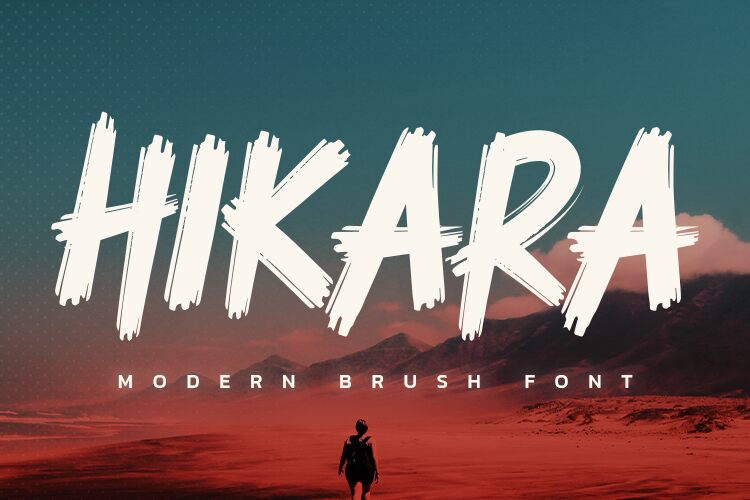
Hikara, a bold and modern brush font by Hamber Perdiansyah, is the perfect choice for projects needing an artistic yet eye-catching twist. Use it to create stunning logos, posters, or social media graphics.
Hikara
Hamber Perdiansyah